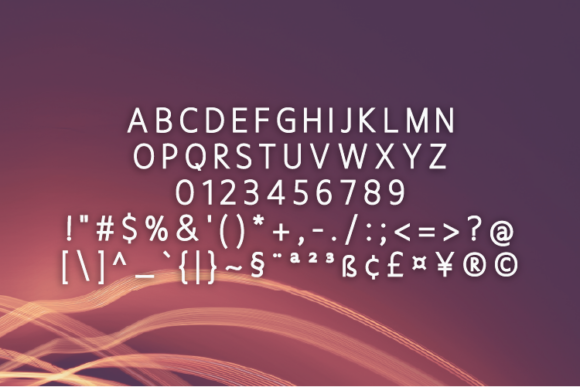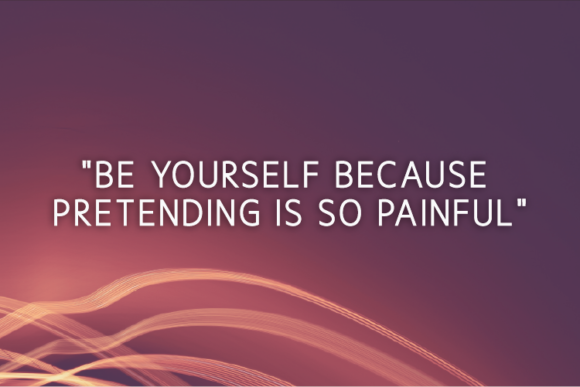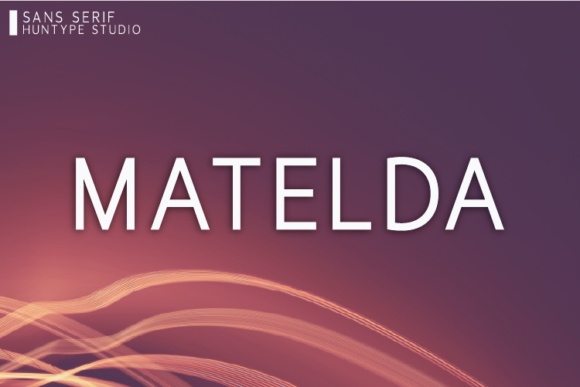
Introduction to Matelda Font
Matelda is a thin and clean sans serif font.
It can be used for various purposes such as logos, headings, t-shirts, letterhead, signage, labels, news, posters, badges and so much more .